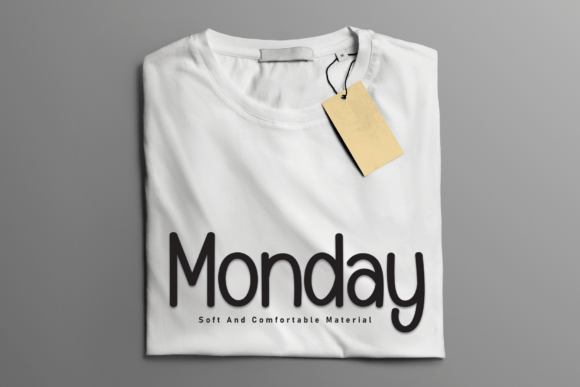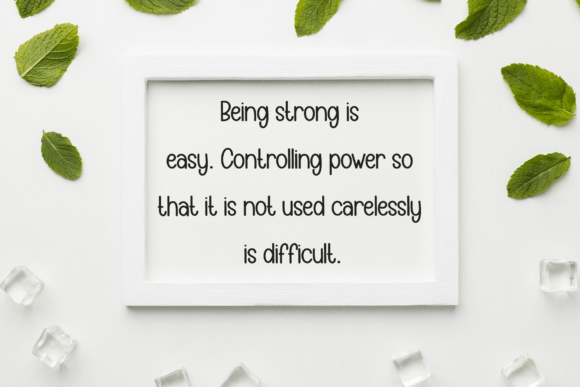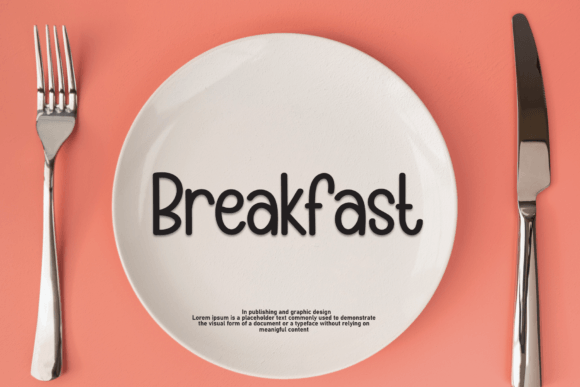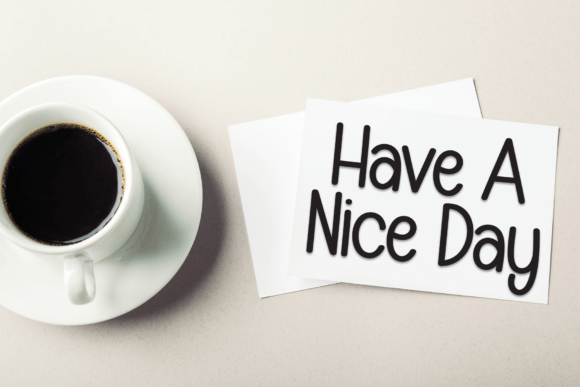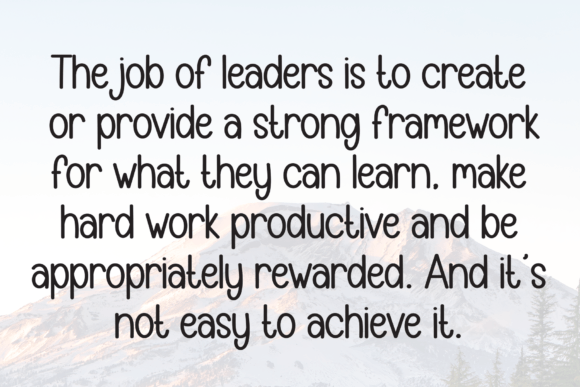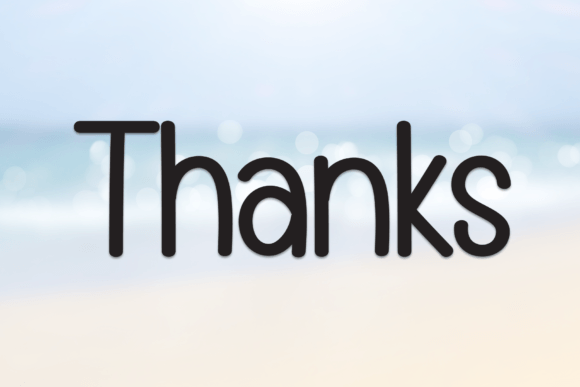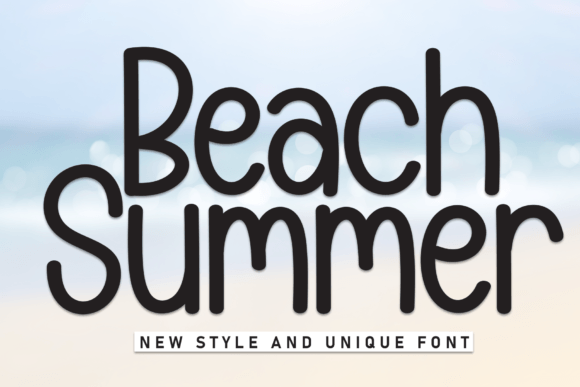
Introducing Beach Summer Font: The Perfect Addition to Your Design Collection
Are you looking for a font that captures the essence of a warm and sunny beach summer? Look no further than Beach Summer Font, a sweet and friendly handwritten font that’s perfect for a wide range of design projects. With its natural and unique style, Beach Summer Font is incredibly versatile and can be used in a variety of creative ways.
A Font that Embodies the Spirit of Summer
Beach Summer Font is a handwritten font that’s designed to evoke the feeling of a carefree summer day. Its soft, flowing lines and rounded edges give it a friendly and approachable feel that’s perfect for designs that need a personal touch. Whether you’re creating a summer-themed poster, a beach-inspired logo, or a set of fun and colorful stickers, Beach Summer Font is the perfect choice.
The beauty of Beach Summer Font lies in its versatility. Its natural and unique style makes it incredibly fitting to a large pool of designs, and the only limit is your imagination! Here are just a few ideas to get you started:
- Create a stunning summer-themed poster or flyer for a beach party or outdoor event
- Design a set of fun and colorful stickers or washi tape for your craft projects
- Develop a beautiful and eye-catching logo for a beach-inspired brand or business
- Make a gorgeous and personalized journal or planner with Beach Summer Font as the primary font
- Use Beach Summer Font to create a set of adorable and whimsical greeting cards or invitations
Why Choose Beach Summer Font?
So why choose Beach Summer Font over other fonts? Here are just a few reasons why Beach Summer Font stands out:
- Unique and Handwritten Style: Beach Summer Font has a unique and handwritten style that’s perfect for designs that need a personal touch.
- Highly Versatile: Beach Summer Font can be used in a wide range of design projects, from posters and logos to stickers and greeting cards.
- Easy to Read: Despite its playful and whimsical style, Beach Summer Font is easy to read and understand, making it perfect for designs that need to communicate a message.
- Perfect for Summer-themed Designs: Beach Summer Font is specifically designed to evoke the feeling of a warm and sunny summer day, making it perfect for summer-themed designs.
Tips for Using Beach Summer Font
Here are a few tips for using Beach Summer Font in your design projects:
- Pair with Other Fonts: Beach Summer Font pairs well with other fonts, especially sans-serif fonts. Try pairing it with a clean and simple font to create a beautiful contrast.
- Use in Combination with Images: Beach Summer Font looks great when used in combination with images, especially beach-themed images. Try using it to add a personal touch to your photos or illustrations.
- Experiment with Colors: Beach Summer Font looks great in a variety of colors, from bright and bold to soft and pastel. Experiment with different colors to find the perfect look for your design.